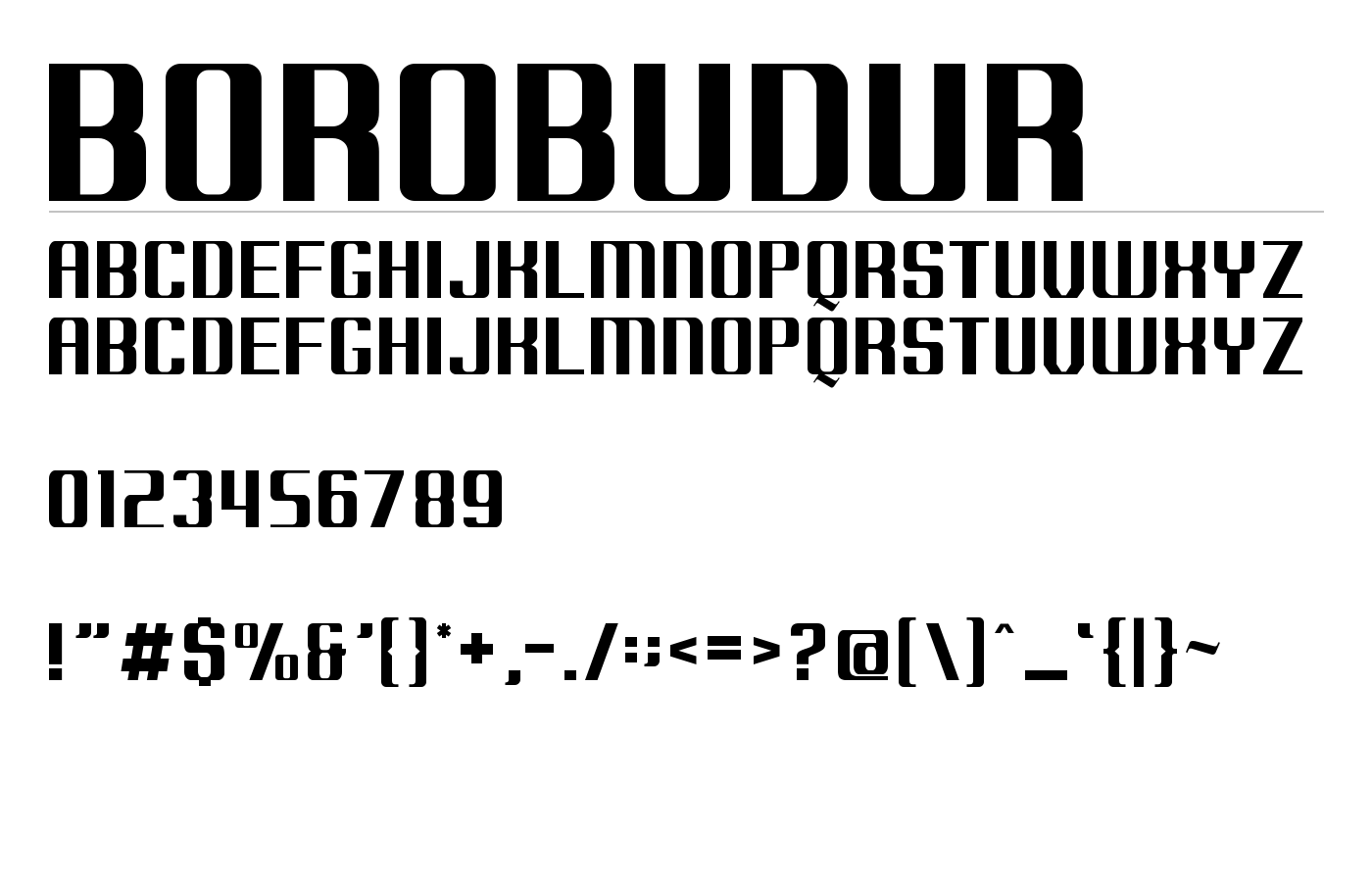
Borobudur is a bold, condensed sans serif font with a modern, geometric style characterized by tall, narrow letterforms and consistent stroke weight. Its strong, square shapes and clean lines convey a powerful, industrial feel, making it ideal for headlines, logos, and branding that require a striking, contemporary presence. This font works well in design contexts where clarity and impact are key, such as posters and packaging, especially for brands seeking a modern, edgy look.
Borobudur Font
About Borobudur Font
| Font family | Borobudur Font |
| Designer | Hantodiningrat |